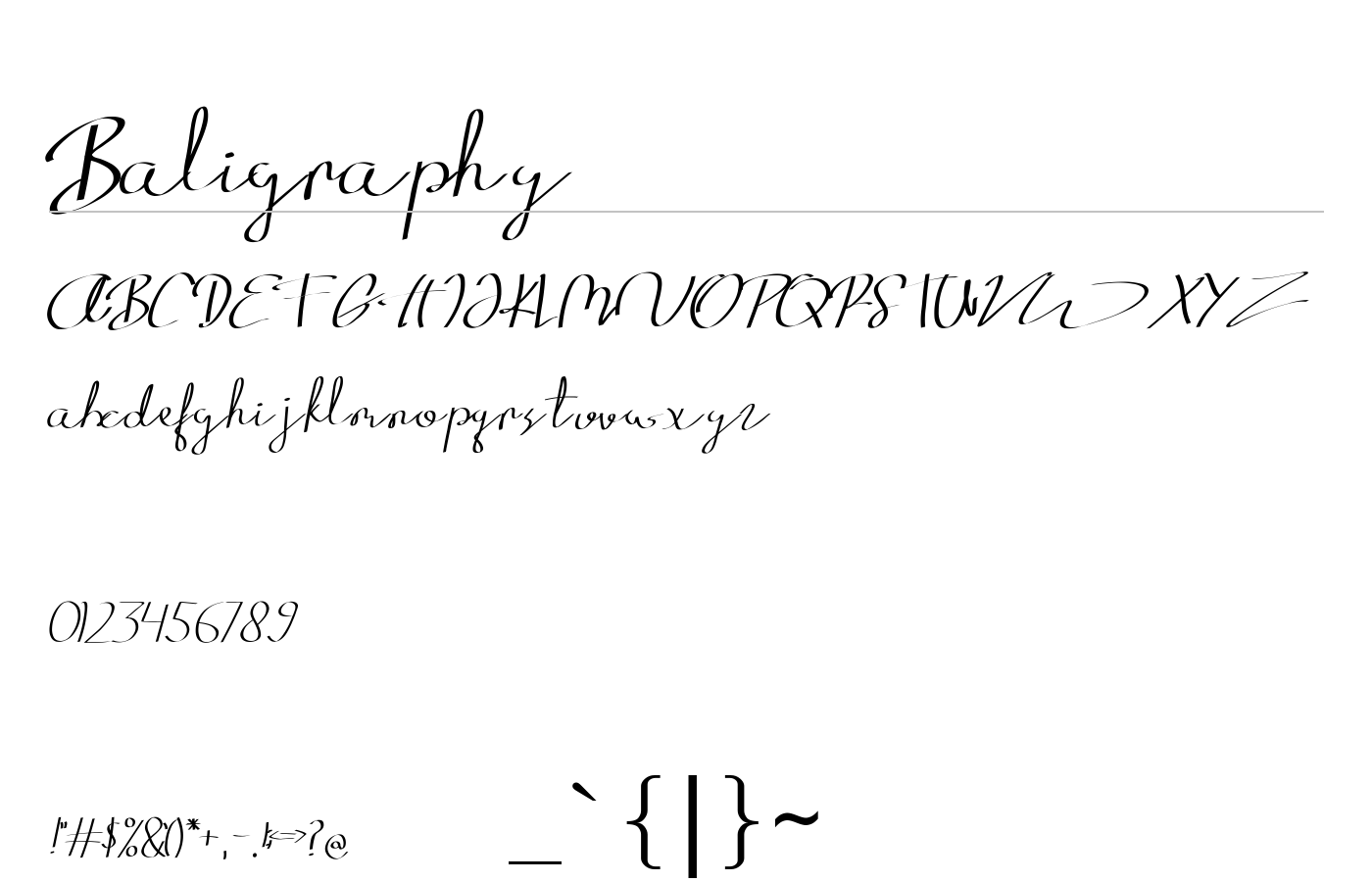
Baligraphy is a delicate script font that captures the elegance of handwritten calligraphy with its fluid, slender strokes and graceful letterforms. Its light weight and high contrast between thin and slightly thicker lines convey a refined, airy feel, making it ideal for sophisticated branding, wedding invitations, or artistic editorial designs where a touch of classic charm and personal expression is desired. This font works beautifully in headlines or decorative text, adding an elegant yet modern flair to any project.
Baligraphy Font
About Baligraphy Font
| Font family | Baligraphy Font |
| Designer | Arfi Ardian |